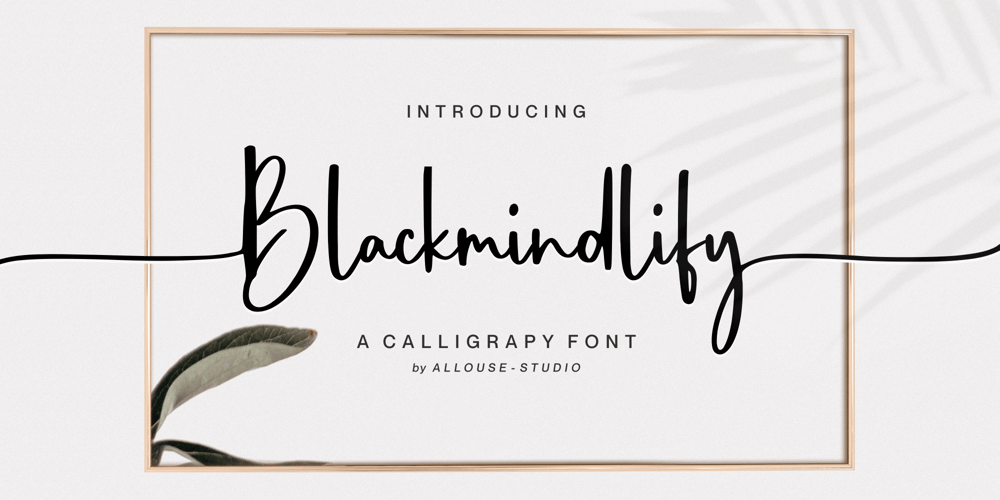
Blackmindlify
Blackmindlify font
Blackmindlify Font Family was designed by Fachrizal Yusuf and published by Allouse Studio. Blackmindlify contains 1 styles and family package options. Proudly Presenting, Blackmindlify A Calligraphy Font.Blackmindlify is perfect for any titles, logo, product packaging, branding project, megazine, social media, wedding, or just used to express words above the background.Blackmindlify come with beginning swash for uppercase, beginning and ending swash for lowercase, also Multi-Lingual Support.Enjoy the font, feel free to comment or feedback, send me PM or email. Thank You!